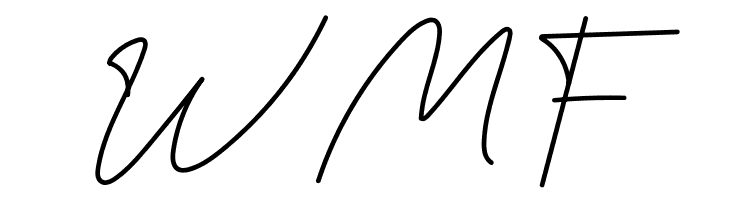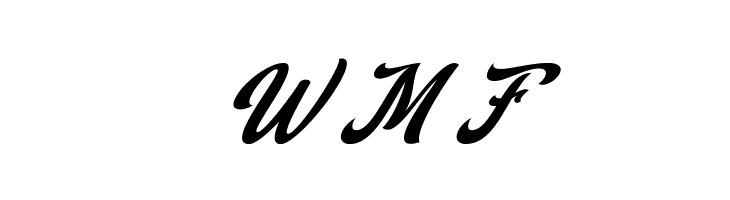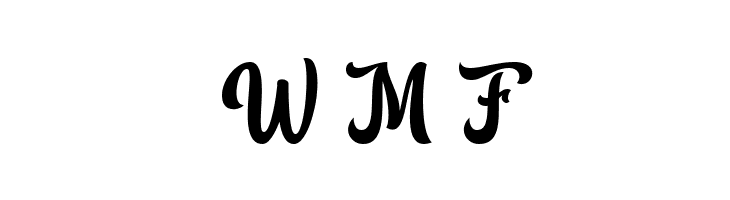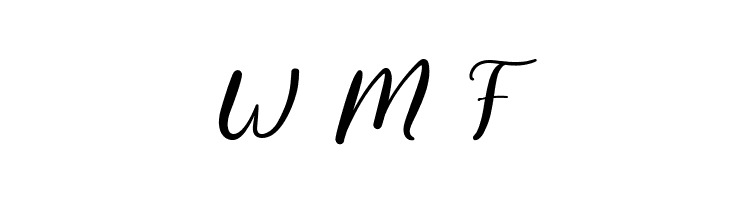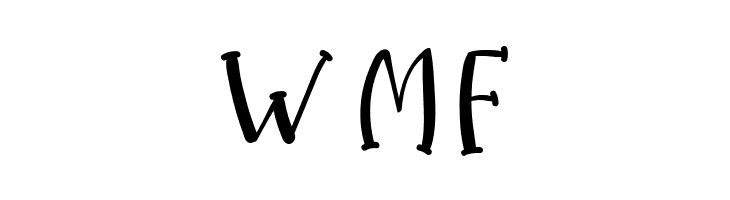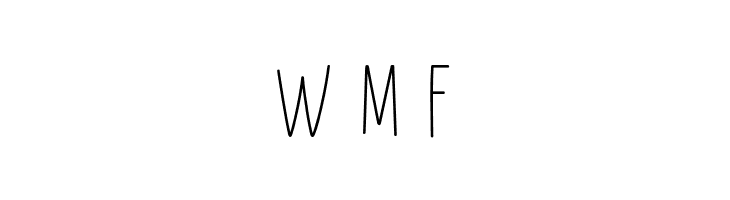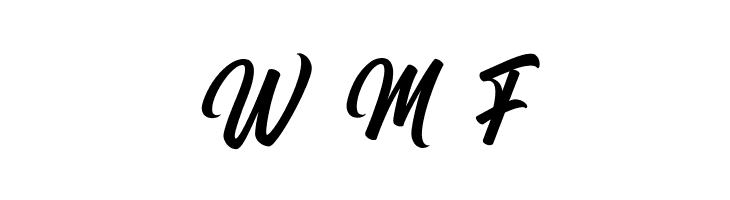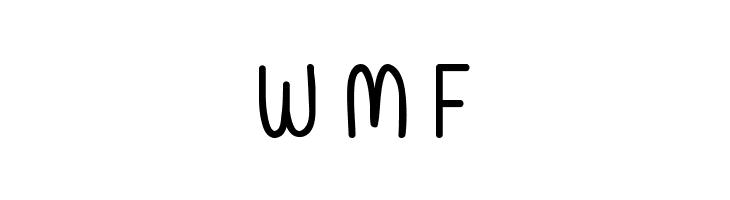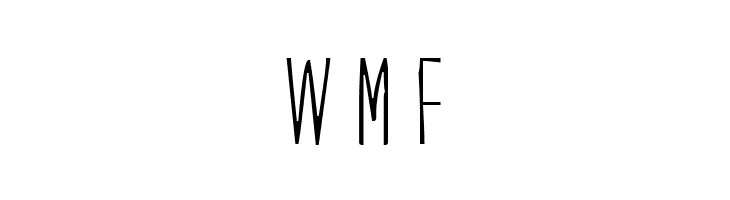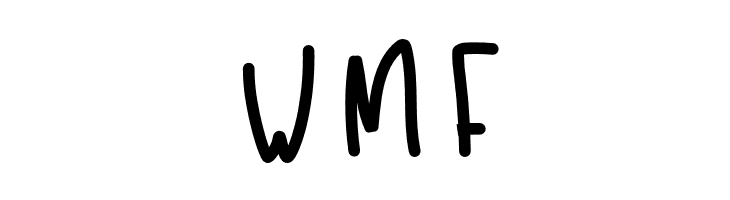
A festive, bold font with playful holiday-themed patterns.
A fluid and elegant script font with medium contrast and graceful letterforms.
A bold, dynamic script font with an elegant italic slant and high contrast strokes.
A bold, playful script font with flowing, cursive letters and a whimsical aesthetic.
A flowing, cursive font with elegant, sweeping curves and a sophisticated style.
A whimsical, cursive font with flowing, artistic strokes.
A playful, handwritten font with whimsical embellishments and medium contrast.
A playful, hand-drawn font with tall, narrow letterforms and consistent stroke width.
A playful, hand-drawn font with tall, narrow letters and a whimsical style.
A bold, cursive font with smooth, flowing lines and interconnected characters.
A playful, handwritten font with a casual and friendly aesthetic.
A playful, hand-drawn font with tall, narrow letters and a whimsical style.
A tall, narrow font with a playful and modern style.
A playful handwritten font with tall, narrow letters and a whimsical style.
A playful, rounded font with smooth curves and a friendly appearance.
A playful, hand-drawn font with tall, narrow letters and consistent stroke width.
A playful, hand-drawn font with tall, narrow letters and a whimsical style.
A playful, hand-drawn font with rounded, consistent strokes and a whimsical charm.
A bold, expressive script font with flowing, cursive letterforms.
A bold, expressive script font with dynamic, flowing letterforms.
A playful, rounded font with smooth curves and a friendly vibe.
A playful, hand-drawn font with bold, rounded characters.
A bold, cursive handwritten font with a lively and spontaneous style.
A whimsical, cursive script font with elegant loops and swirls.
A modern, elegant script font with high contrast and flowing italic style.
A lively and dynamic script font with fluid, cursive strokes.
A fluid and elegant script font with graceful curves and a handwritten feel.
A fluid and elegant script font with a handwritten style.
An elegant and flowing script font with ornate, interconnected letterforms.
A playful, bold handwritten font with smooth curves and a casual style.
A playful, handwritten font with smooth, rounded strokes and a whimsical style.
A bold, high-contrast font with a modern-vintage style and elegant curves.
A spooky, hand-drawn font with irregular, twisted lines.
A playful, handwritten font with a casual and friendly appearance.
A whimsical, cursive script font with elegant, flowing strokes.